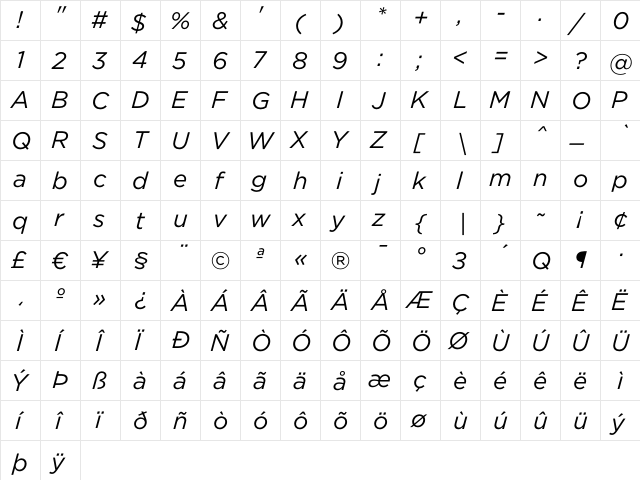
Gotham Italic
Design Context for Gotham Typeface
Gotham takes a measured approach to typography — its balanced proportions and neutral character make it a reliable workhorse for both digital and print work. The slanted form adds forward momentum and visual energy.
Pro Tip: Try Gotham for annotation and caption copy alongside an upright companion — the contrast in angle creates a dynamic but ordered typographic system.